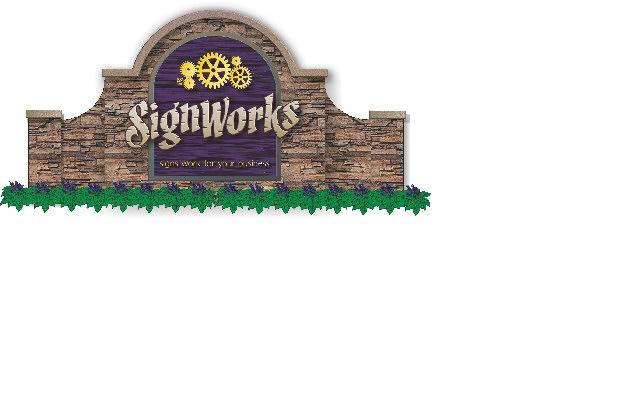
Hello all,
I sure could use some feedback on this design. It would be a concrete block structure covered with cultured stone. There would be a sandblasted HDU panel, Carved HDU letters with a fade. The secondary copy would be gilded and the 3D "gears" would be router-carved and gilded.
The monument would be about 15' x 7'.
Overall effect is nice but I must be too far away as I cannot make out the secondary copy from here.
The finished monument would be about 15' 4" long so in order to shrink it down enough, the secondary copy looks pixelated. Ir would really be about 3.5 to 4" high and would only need to be read as the customer pulls into the driveway. THe "S" in "Signworks" would be about 23"
My point was that while I understand one being able to read the secondary copy while close, your message is important to set you apart from the rest of us. At 4" in gold it should be readable at 30 feet but I would like to see it have more impact at say 100 feet. I guess it depends upon traffic and its speed. Just my opinion though.
There'a enough negative space there. I'll try putting it on two lines and increasing the size, when I get back to work Monday. I appreciate the help.
My first glance impression is that while the main copy has enough contrast with the blue background, where it overlaps on the stone there is much less. Could be a source of readability problems, depending how fast traffic moves and how much visual competition it has to deal with.
My thought for the tagline: "Signs That Work"
Cam has a point with the main copy 'Signworks'. I think a black outline
would fix it though. "Signs That Work", great tagline, I'd run with it.
After looking at this design a few times, I feel that the shape of the blue panel is wrong for the shape of the structure. Its panel is too vertical. Try using a shape that is more horizontal. As Cam stated, the contrast between the structure and the lettering is too similar. Try keeping the Lettering inside a revised horizontal blue panel.
By making the panel more horizontal you will also be able to increase the size of your tag line.
By doing a few more layouts, you may find a combination that works.
Sometimes you have to walk away from your layouts and come back to them a day or so later.
By looking at them again with fresh eyes, you may see something you did not see before.
I have the perfect resolve........as Mark suggested, add a heavy outline.....then cut the bottom of your main panel following the outline. That's the main sign panel. Under that main panel add another panel for your tag line, a panel as long as the first stage of stone. See how that might look